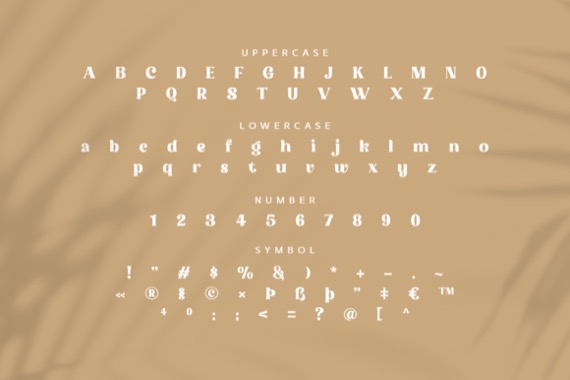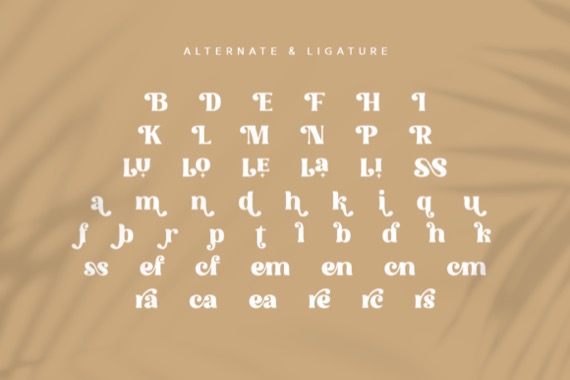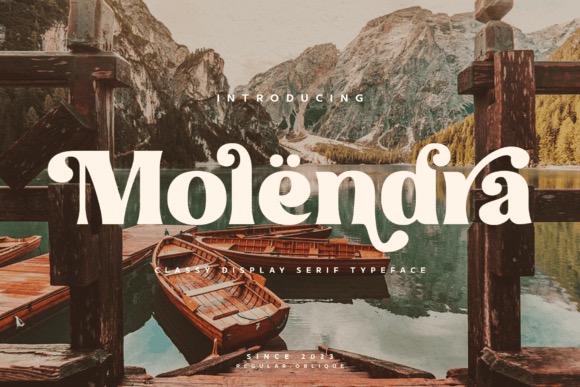
Molendra is a luxury and classy display serif font that was created and published by Chairul Ma’arif with 260+ characters. Includes uppercase, lowercase characters, multilingual, alternates, and most common other characters. Molendra is perfect for logos, social media posts, product packaging, product designs, and other projects. This font is PUA encoded which means you can access all of the amazing glyphs and ligatures with ease!
Molendra Display Serif Font